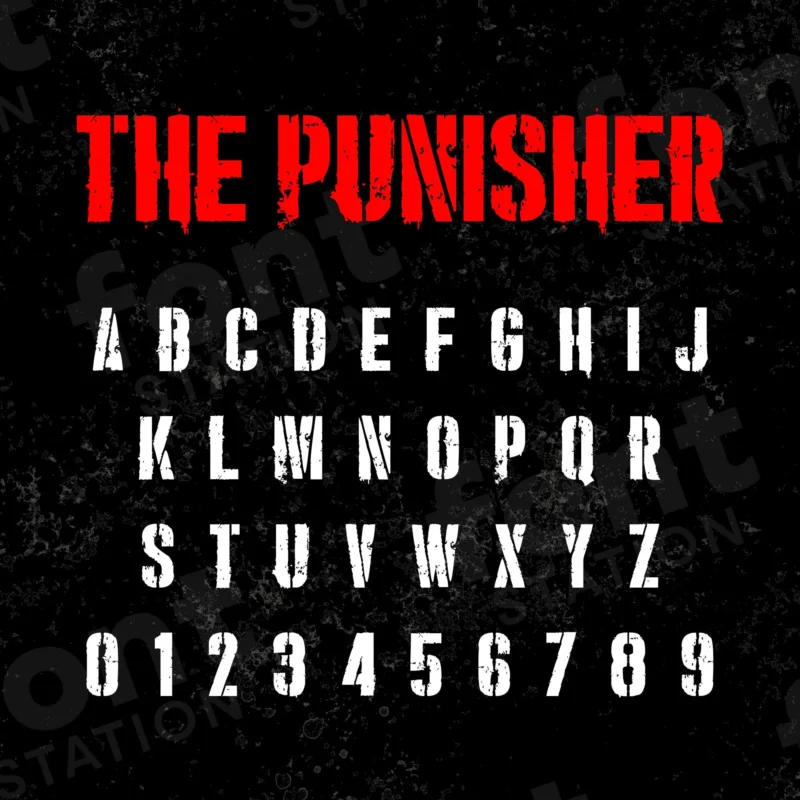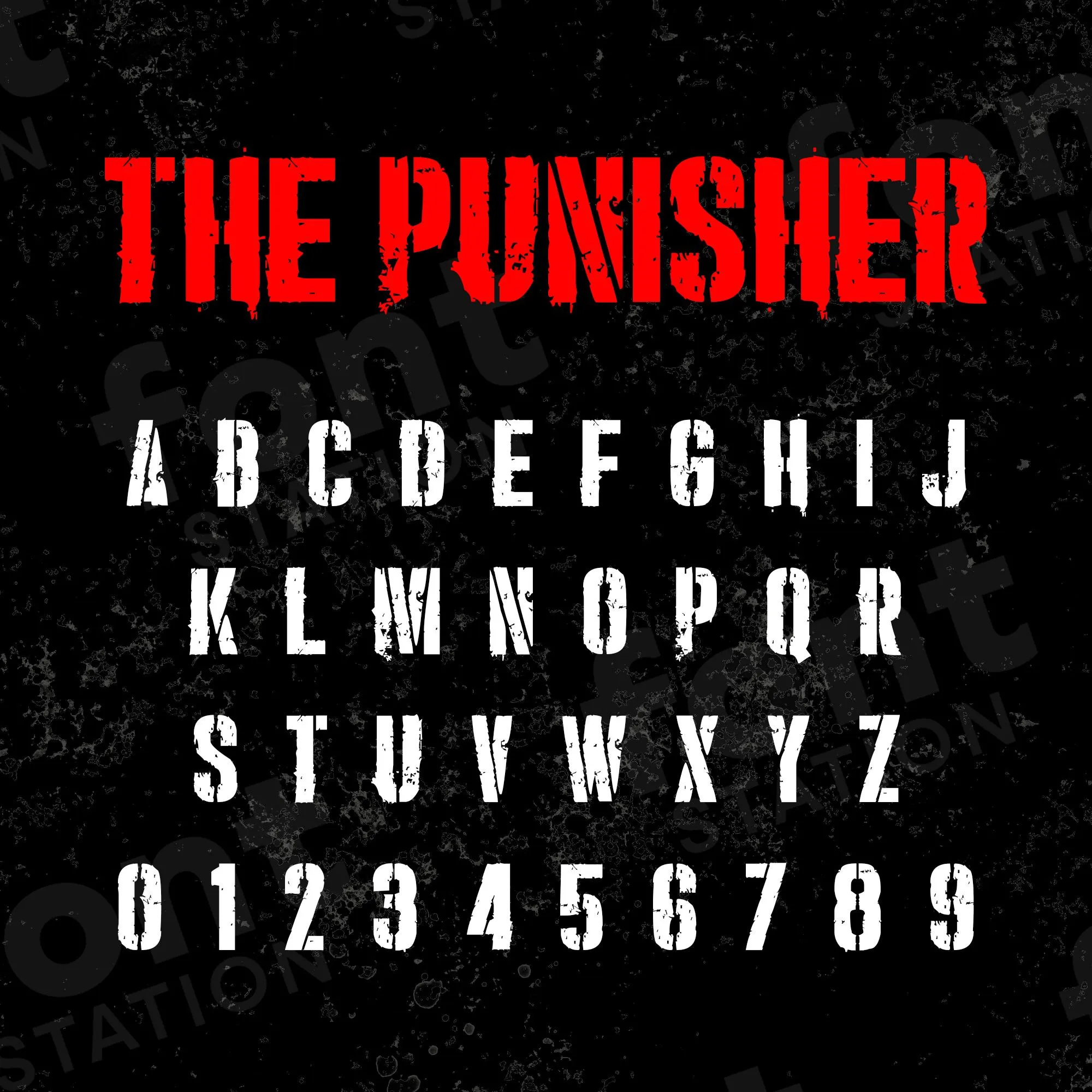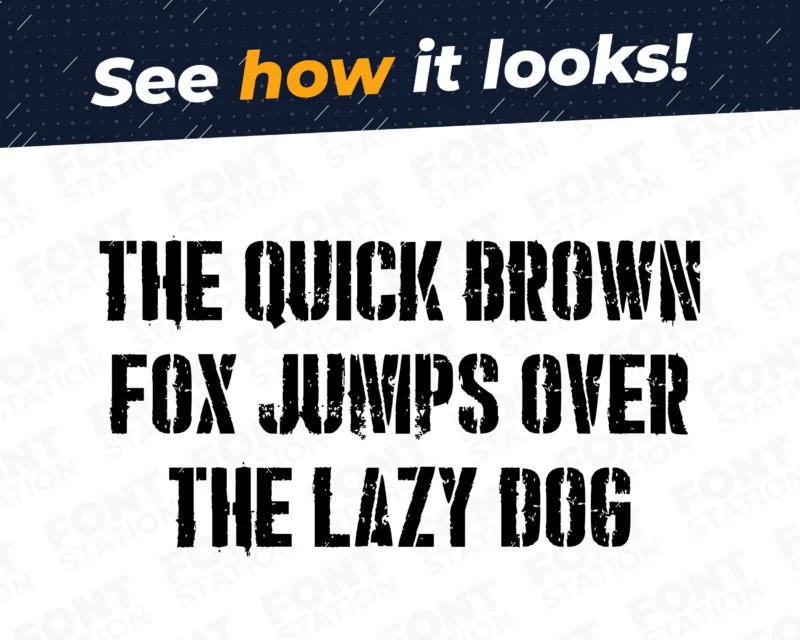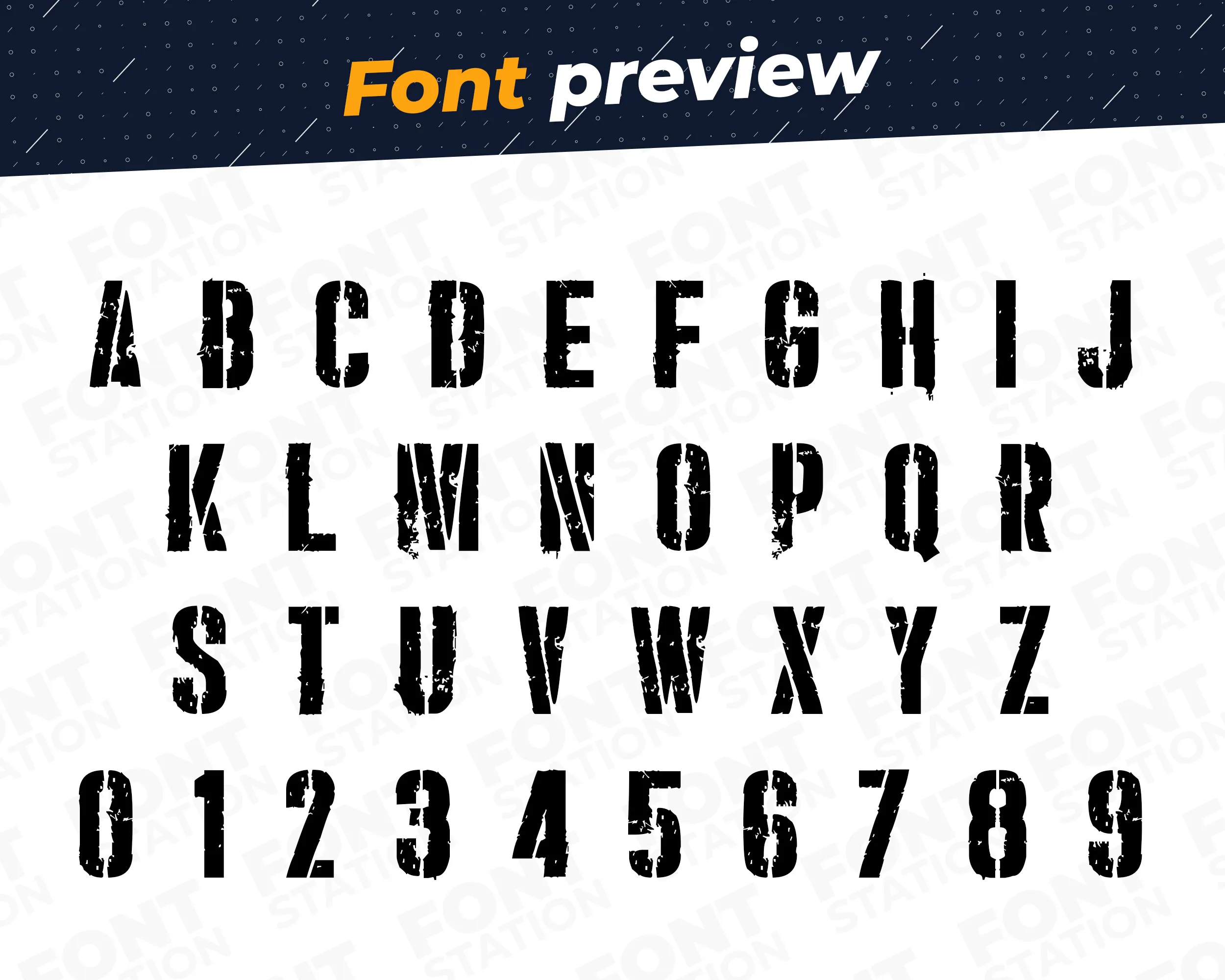
Our Punishment typeface, inspired from The Punisher font
Grab your computer, tablet or other device and start creating right now with The Punisher font letters! Our Punishment typography is inspired from The Punisher series font, making it ideal for various digital creations (logo, word…), sublimation, cake toppers, stickers, event decorations, and more.